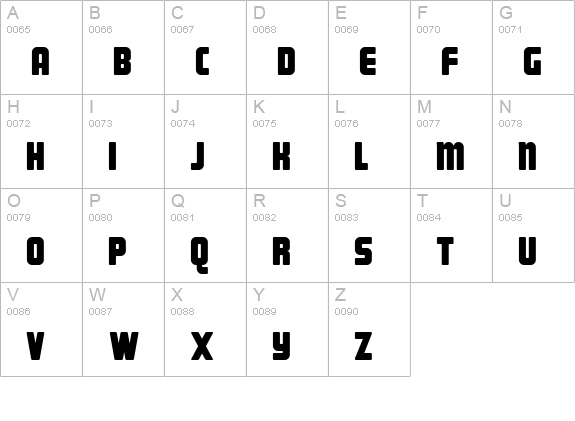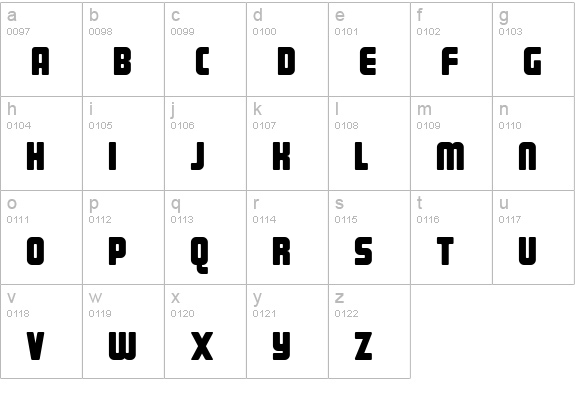
Magnum Font Details
Introducing Magnum, a captivating font that effortlessly combines elegance and modernity. With its sleek lines and refined curves, Magnum adds a touch of sophistication to any design project. This versatile font is perfect for both headings and body text, making it an ideal choice for various creative endeavors. Magnum's unique and distinctive letterforms are bound to catch the eye and leave a lasting impression. Its graceful strokes and balanced proportions create a harmonious visual experience, ensuring that your message stands out with confidence and style. But what truly sets Magnum apart is its accessibility. This remarkable font is freely available to download at FontsMarket.com, allowing designers, writers, and enthusiasts alike to experience its beauty without any limitations. Its availability as a free resource opens up a world of possibilities, making Magnum a go-to choice for professionals and beginners alike. Whether used in print or digital media, Magnum effortlessly adapts to any context, enhancing the overall aesthetics of your project. Its versatility extends to a wide range of design applications, including branding, advertising, packaging, and more. Magnum's timeless appeal and modern sensibility make it a timeless investment for any creative venture. So don't miss out on this exceptional opportunity to add Magnum to your font collection. Download it for free at FontsMarket.com and unlock a world of design possibilities. With Magnum, you can elevate your projects to new heights, leaving an indelible mark in the world of typography.